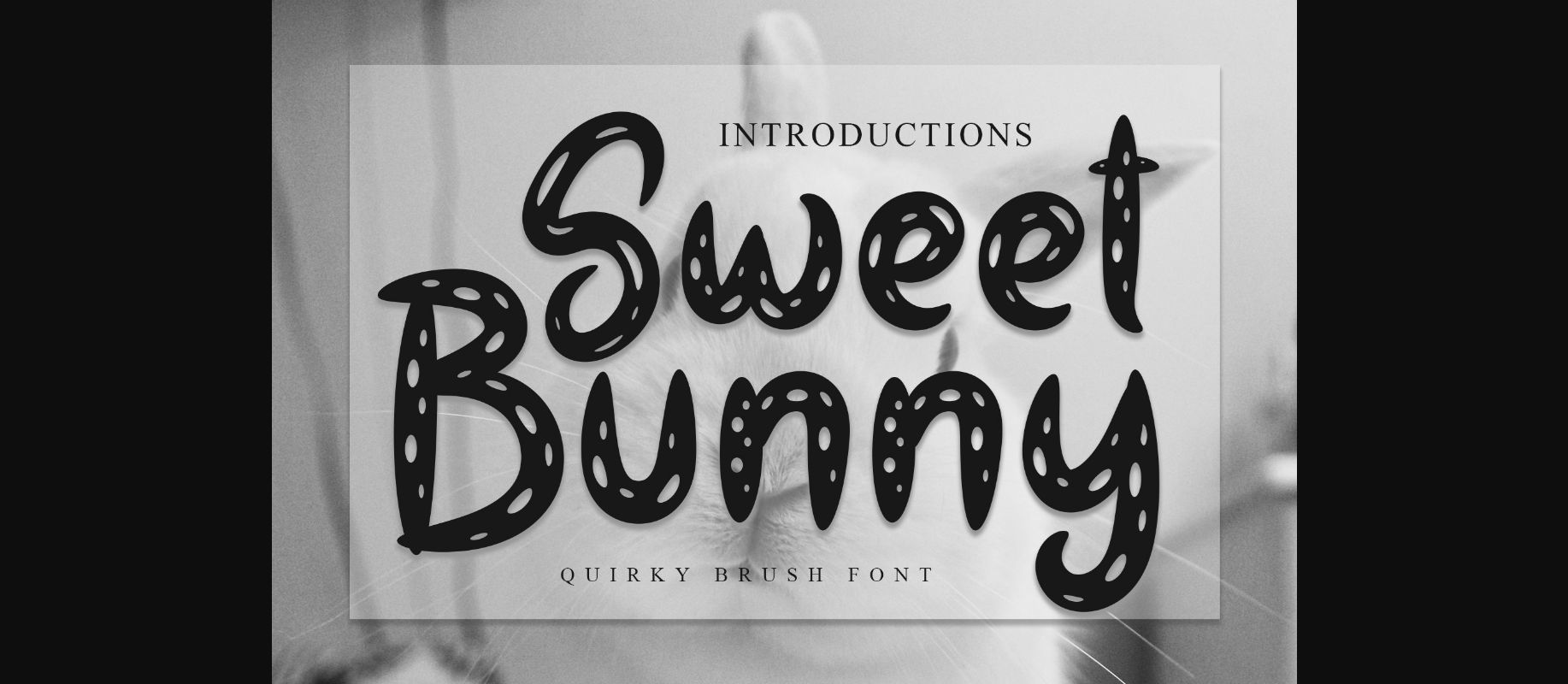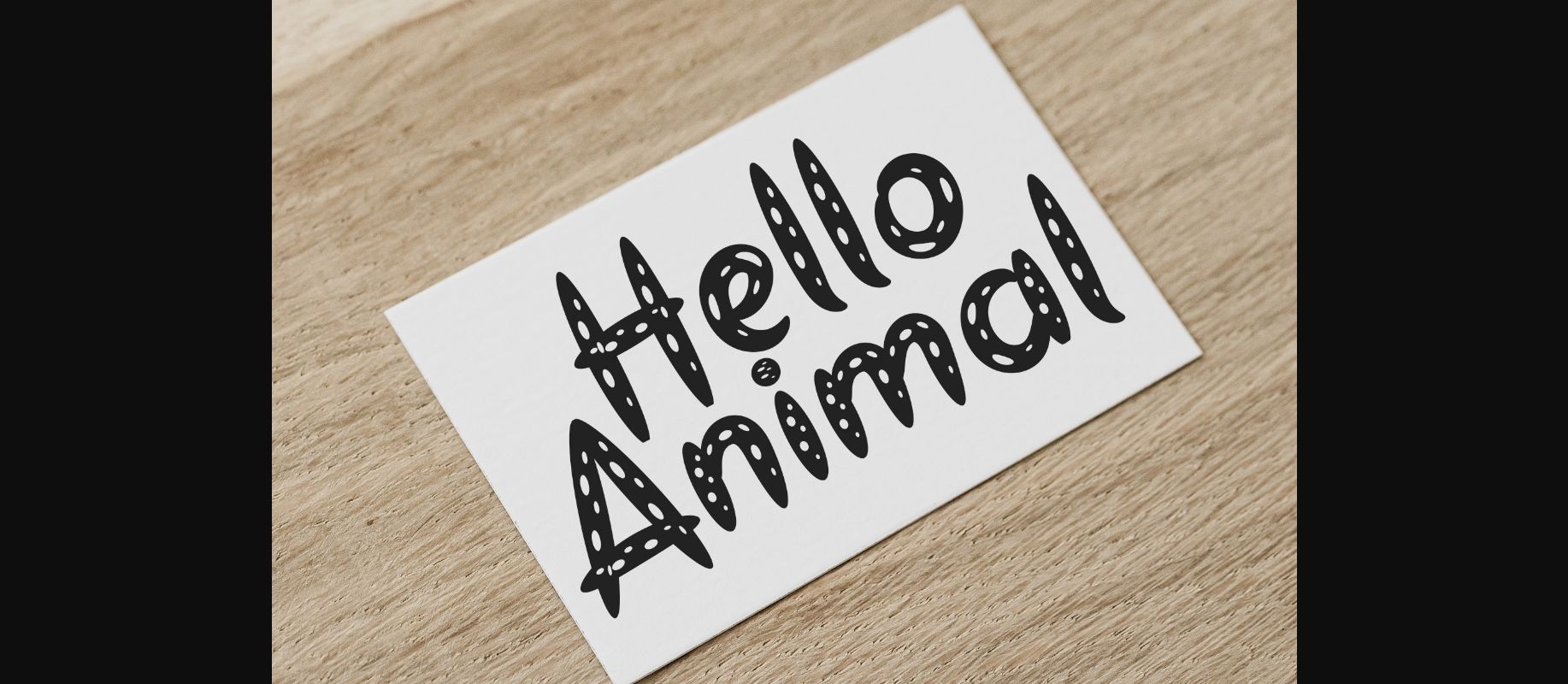
About Sweet Bunny Font
Sweet Bunny is a handmade decorative font. It was carefully crafted on paper, scanned in high-resolution, and carefully traced for the best result.